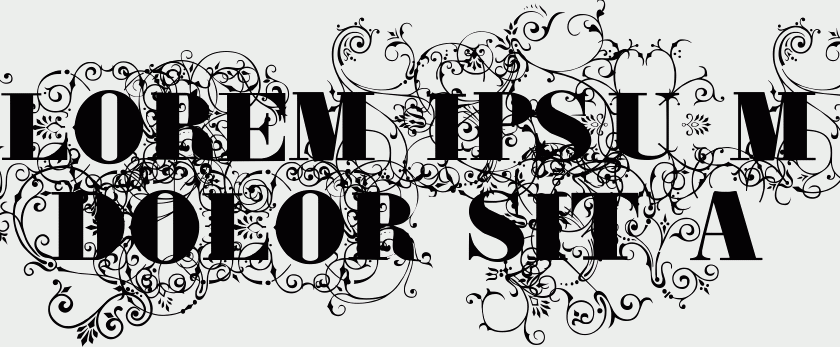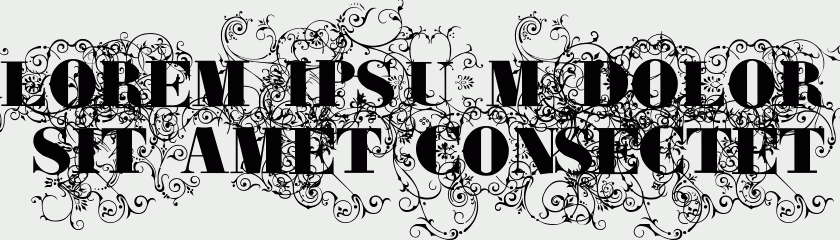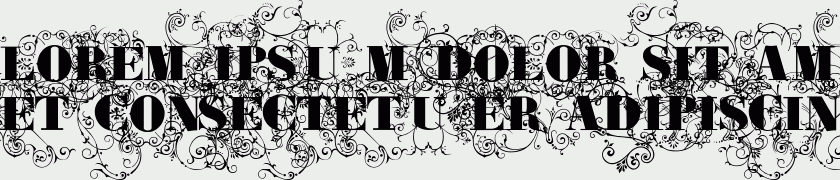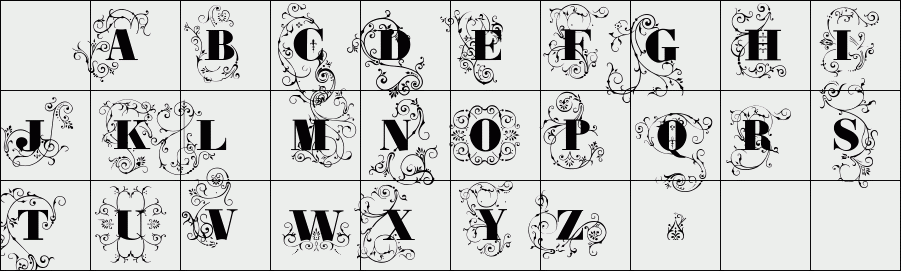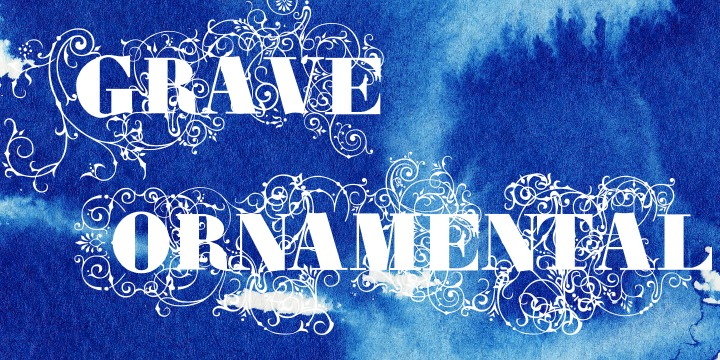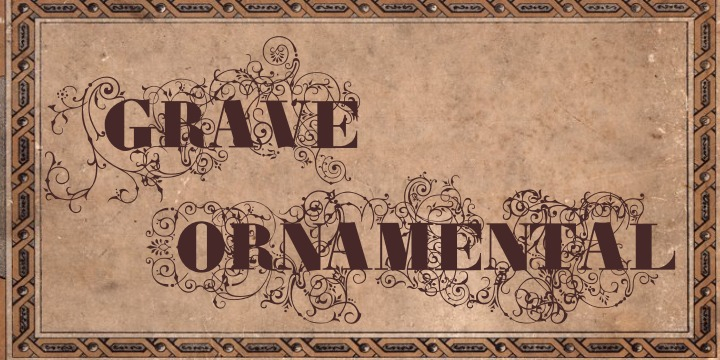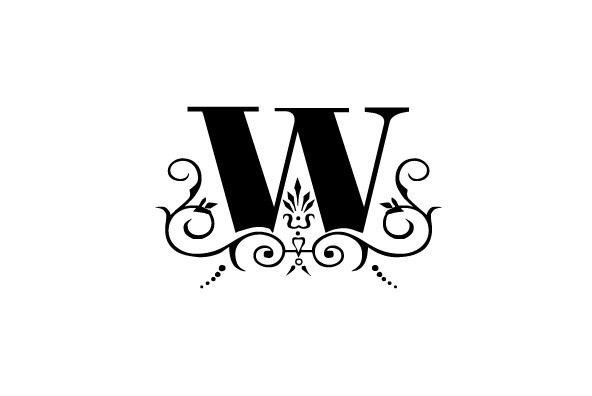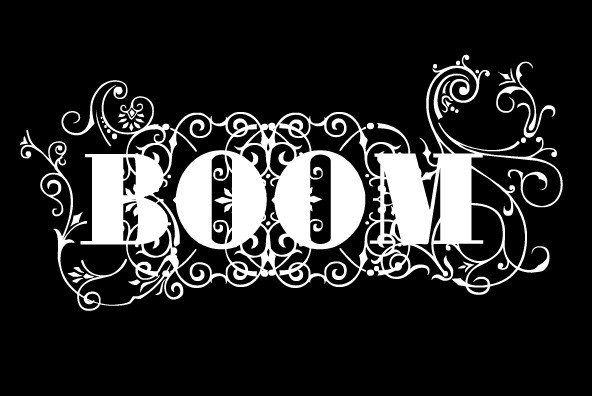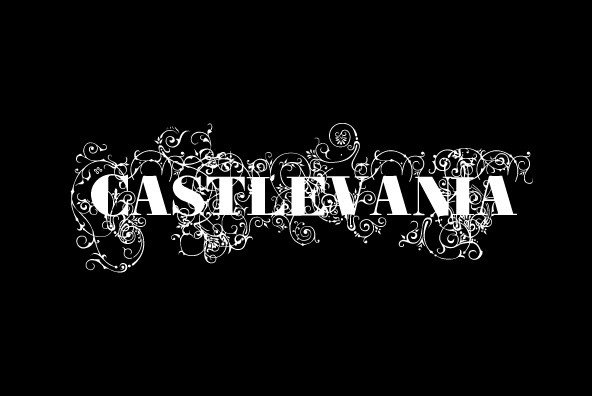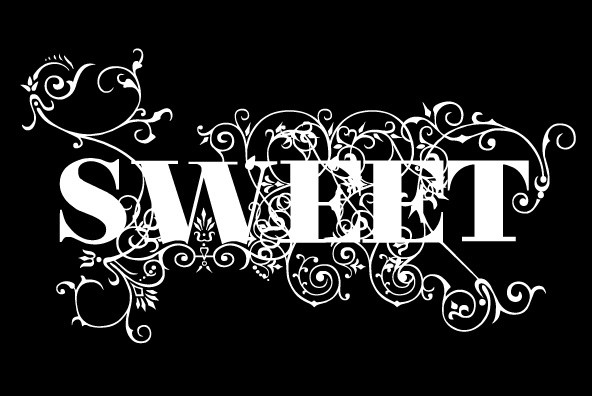
Grave Ornamental
Grave Ornamental is a Intellecta's best seller, a classic font design remastered, distressed and antique, merging the bodonian style with tendrils and victorian ornaments. Ideal to use in in display purposes for a stylized type design.